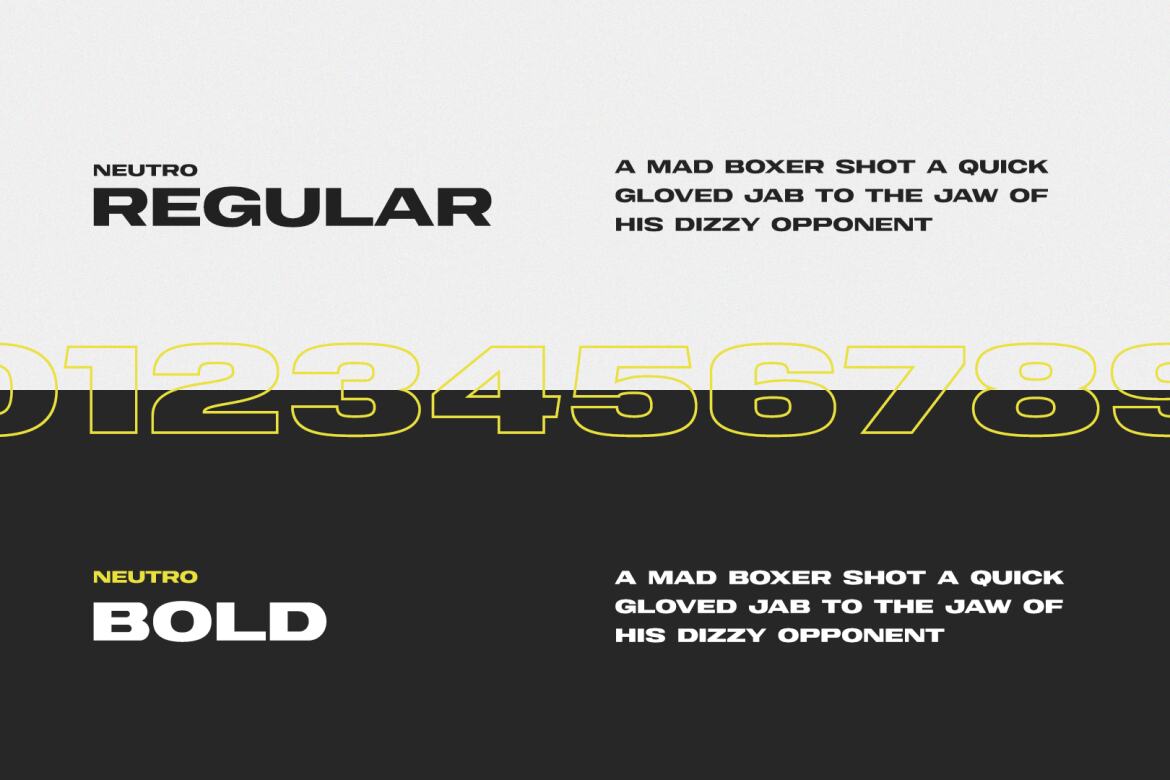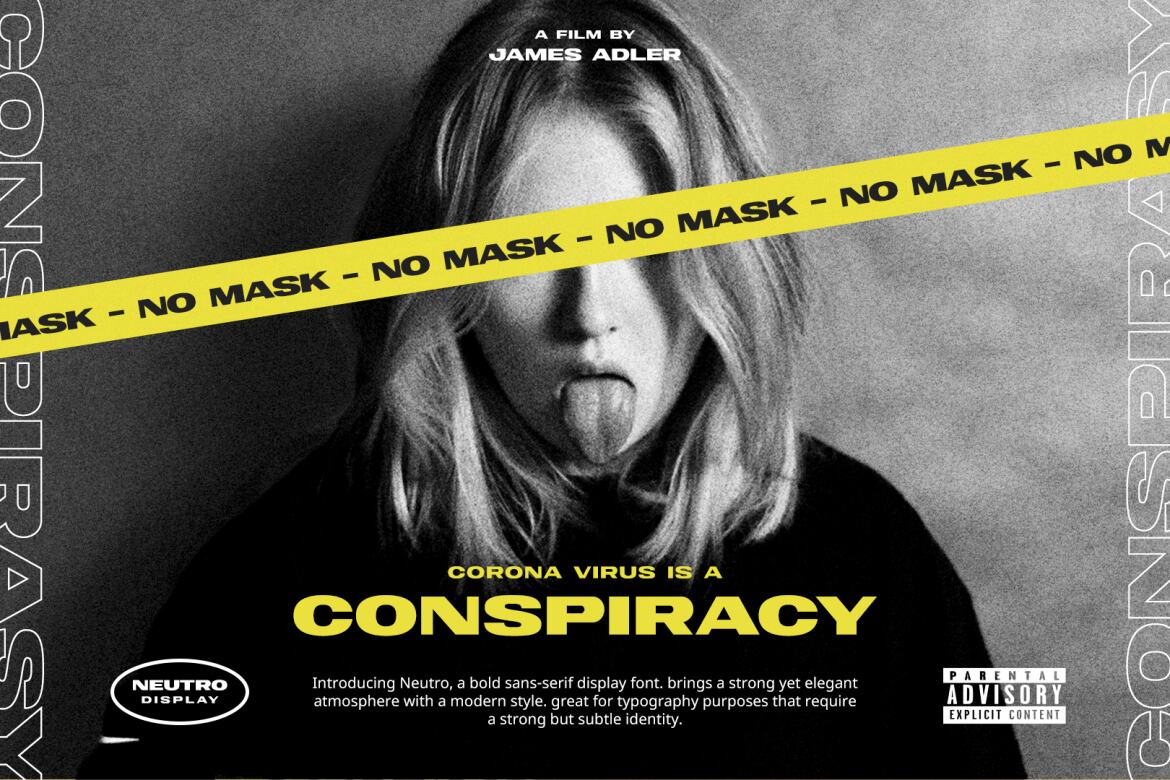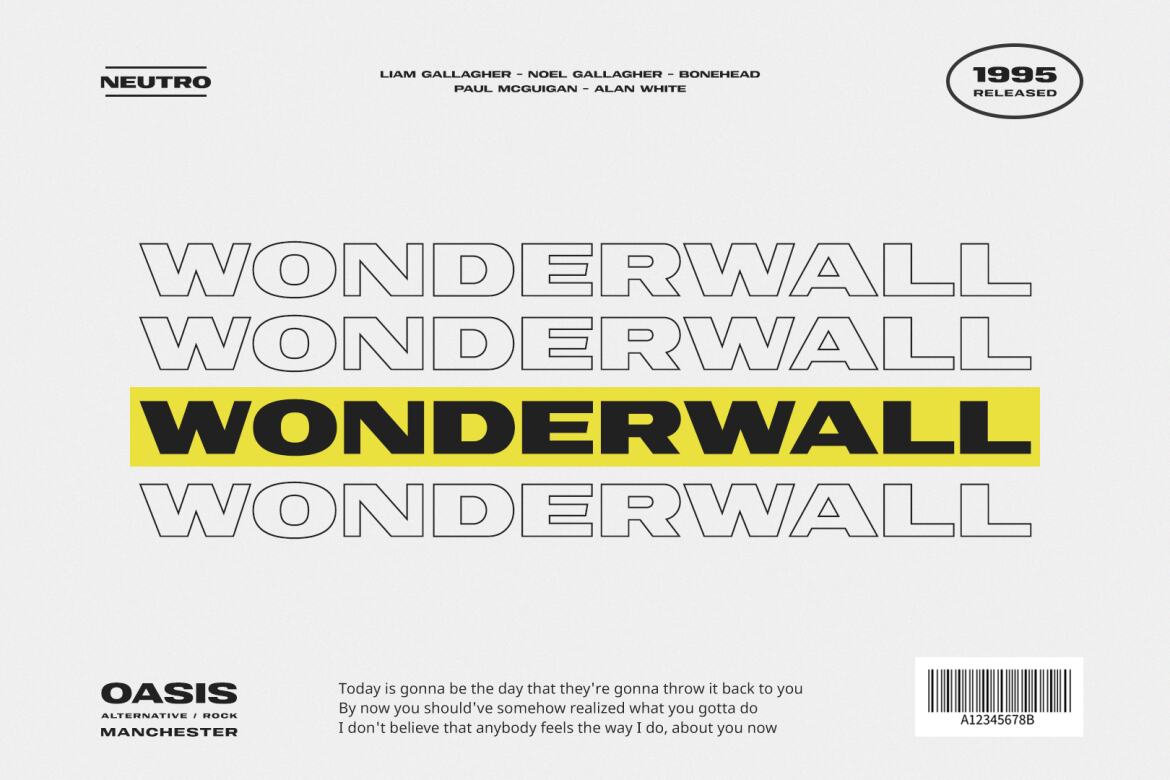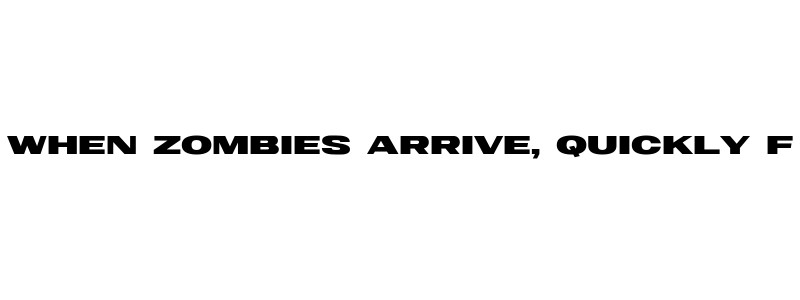
Nuetro Display - Free Font Family
Introducing Neutro, a bold sans-serif display font. brings a strong yet elegant atmosphere with a modern style. It brings you strong characters that draw attention by their simplicity, and although Neutro is bold by nature, it always finds space for an elegant touch and a modern display that can be used for magazine covers, posters, album art, and other typography purposes.
• bold and clear is suitable for attracting attention
• strong and unique font for display purpose
• support multiple languages